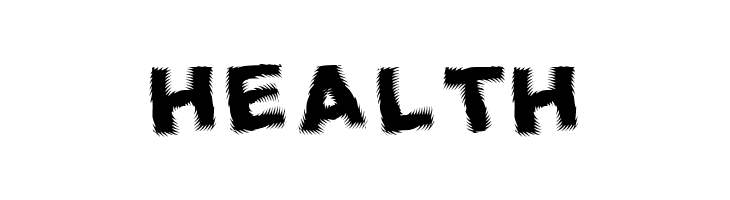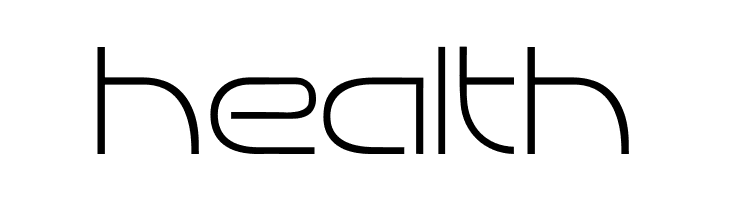
A bold, Western-style slab serif font with thick strokes and a strong presence.
A dynamic, sketch-like font with a playful and chaotic appearance.
A decorative font featuring vintage car illustrations for each character.
A flowing, cursive font with a natural handwritten style.
A retro dot matrix font inspired by vintage pinball displays.
A modern, geometric font with tall, narrow characters and rounded corners.
A bold, dynamic font with jagged edges and a sense of movement.
A futuristic, angular font with a sleek and dynamic appearance.